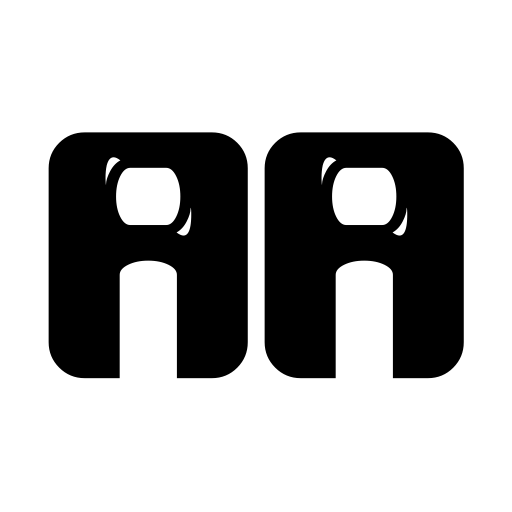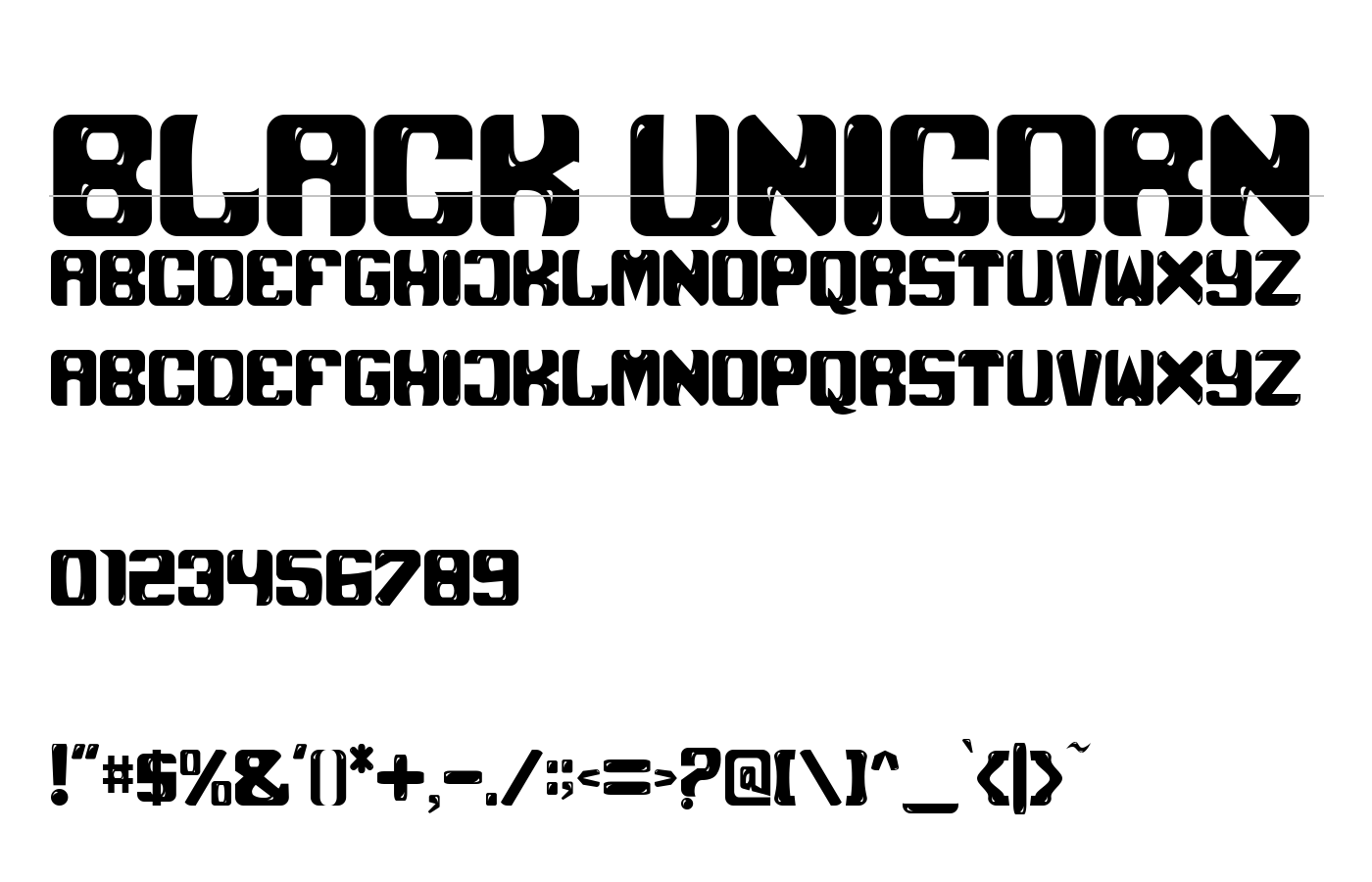
Black Unicorn is a bold, condensed sans serif font with a striking modern-industrial vibe, featuring thick, blocky strokes and uniquely rounded corners that soften its strong presence. Its uppercase-only style, combined with high stroke contrast and geometric shapes, makes it ideal for eye-catching headlines, posters, and branding that demands attention with a cool, urban edge. This font stands out in creative projects needing a bold statement without sacrificing readability.
Black Unicorn Font
About Black Unicorn Font